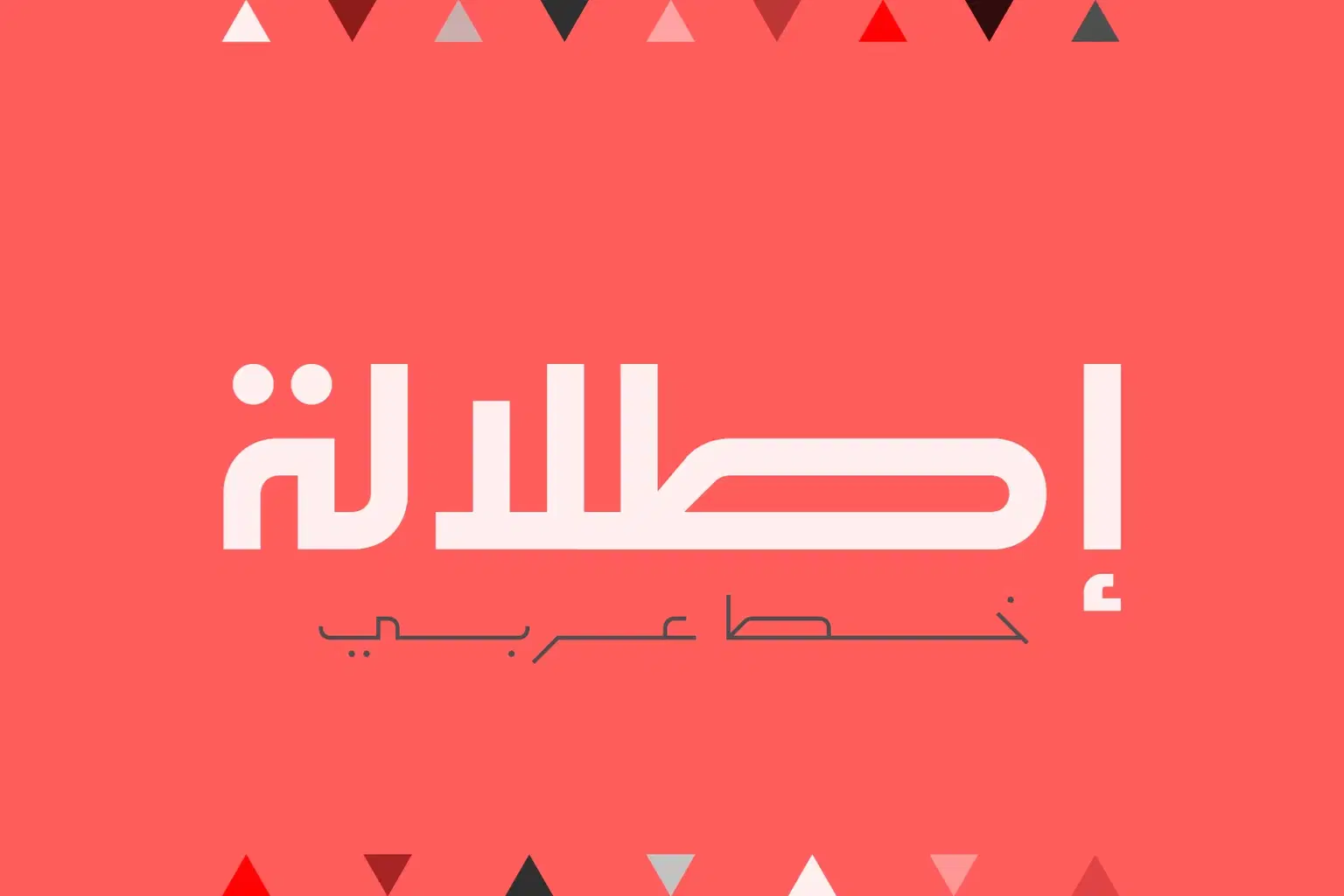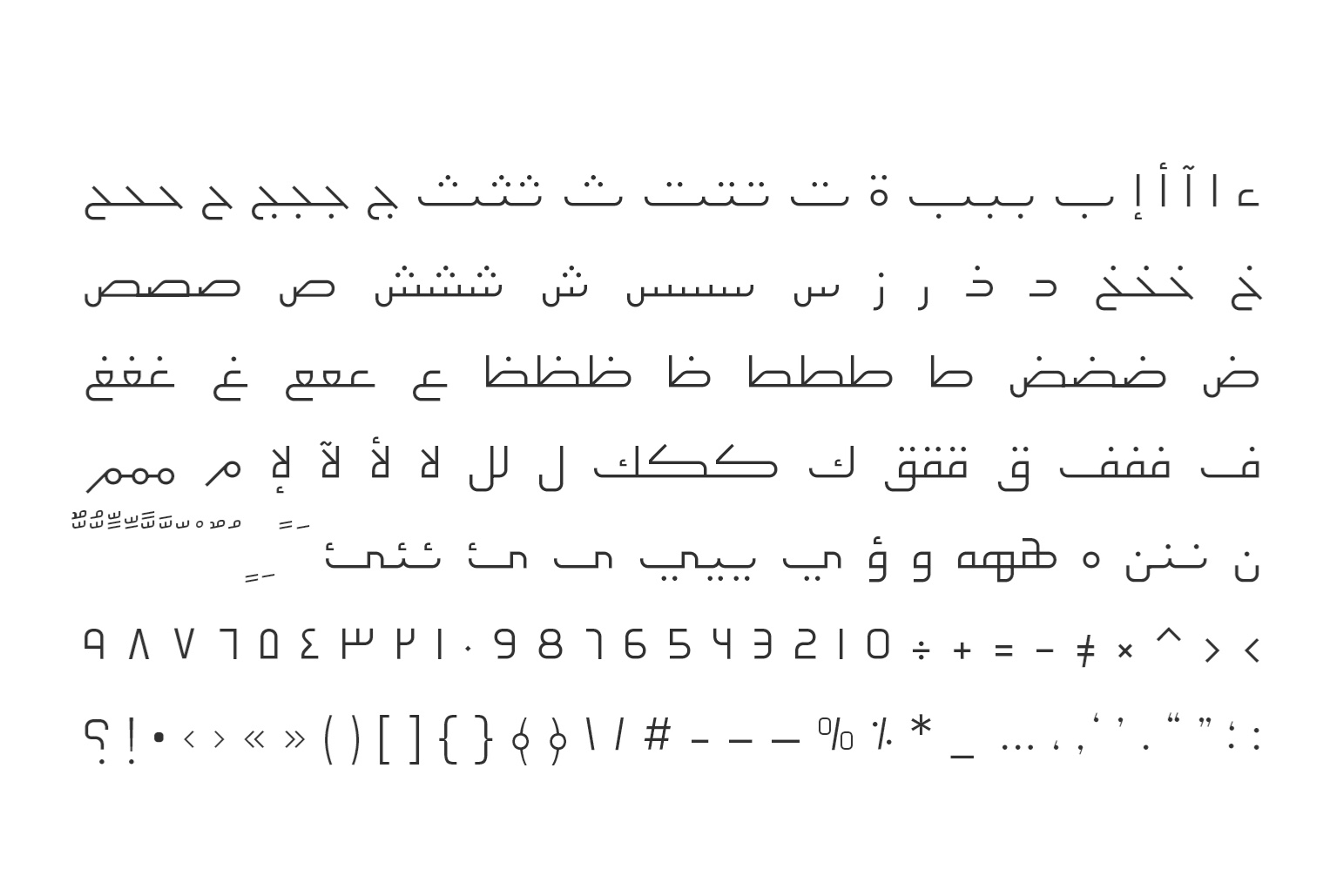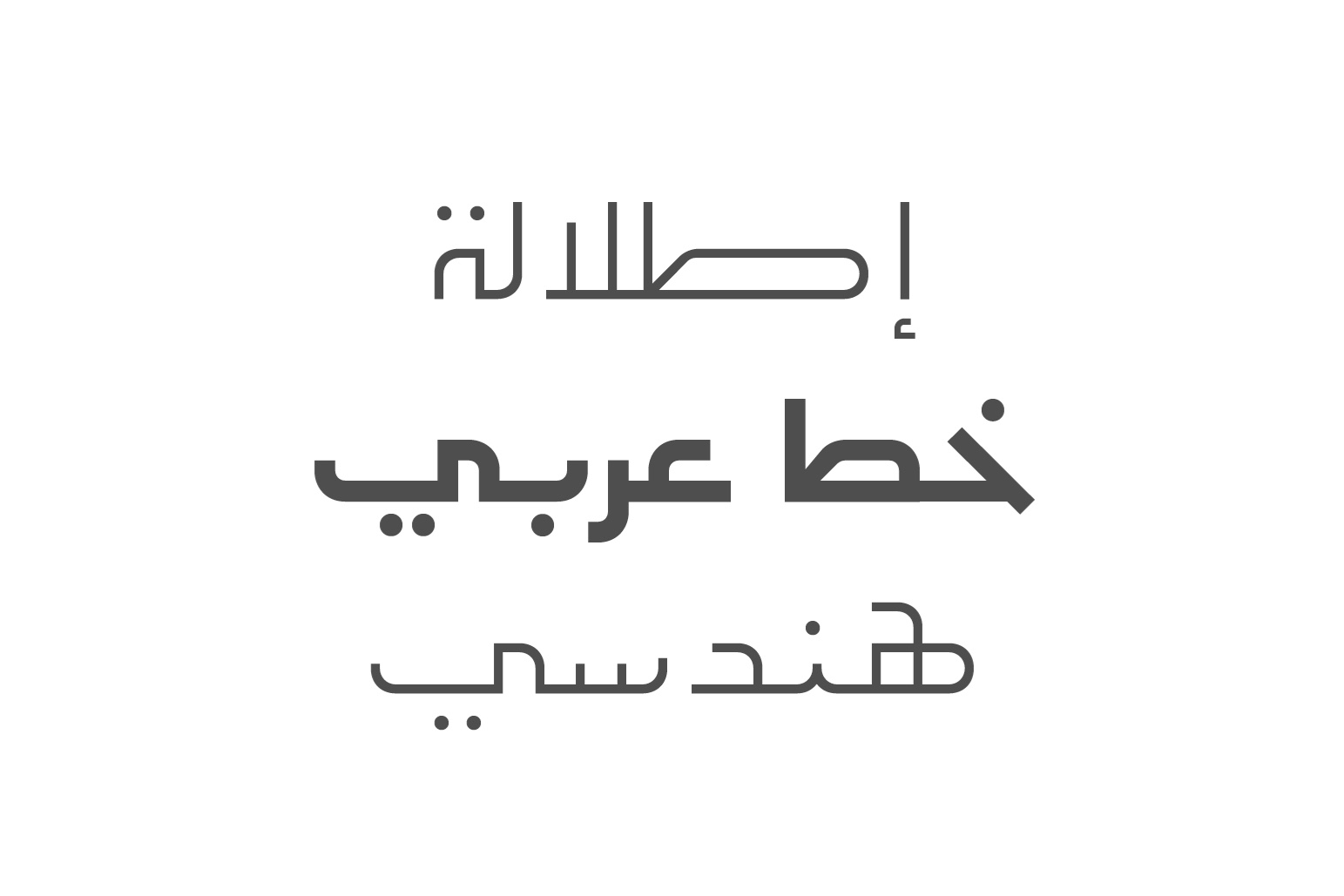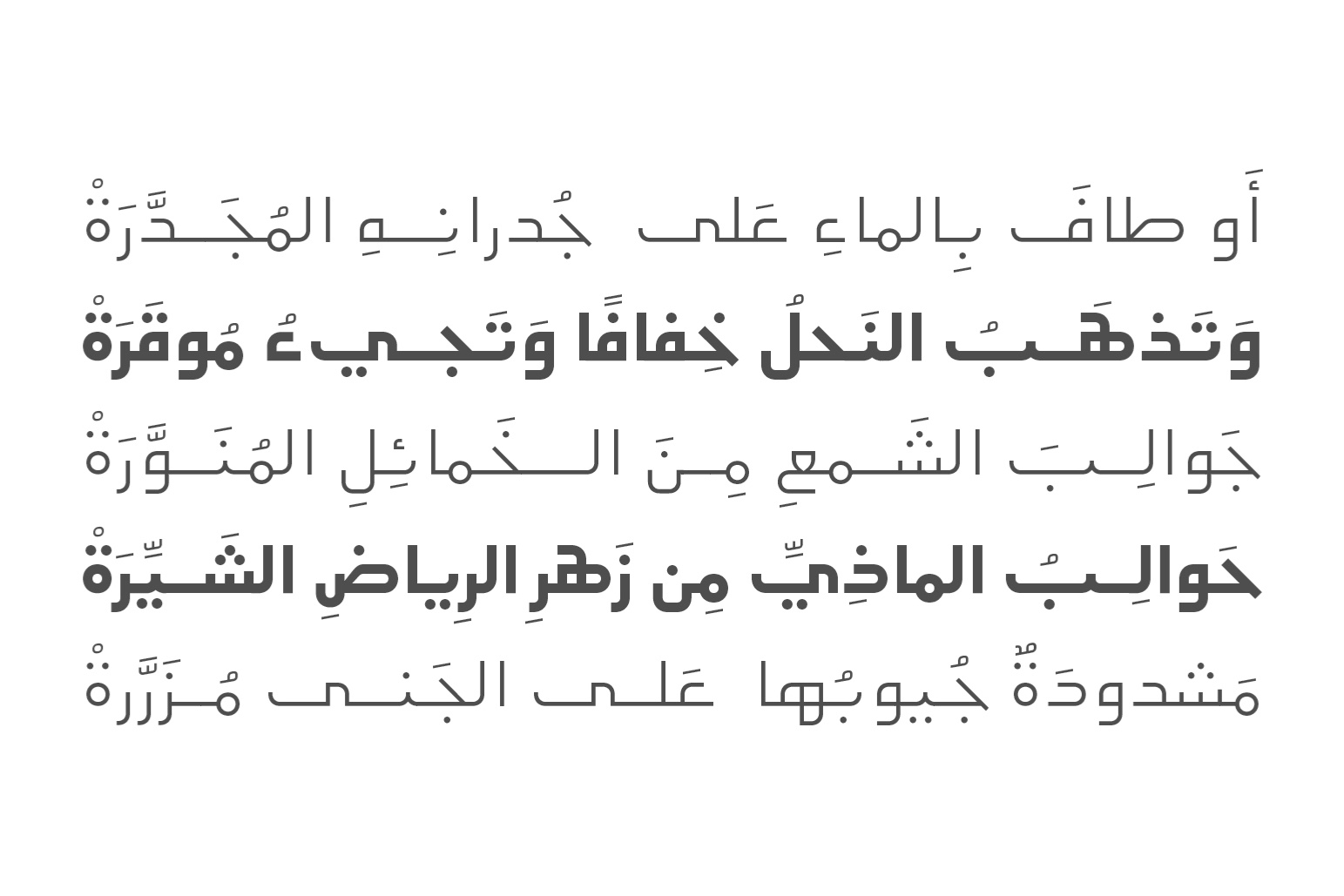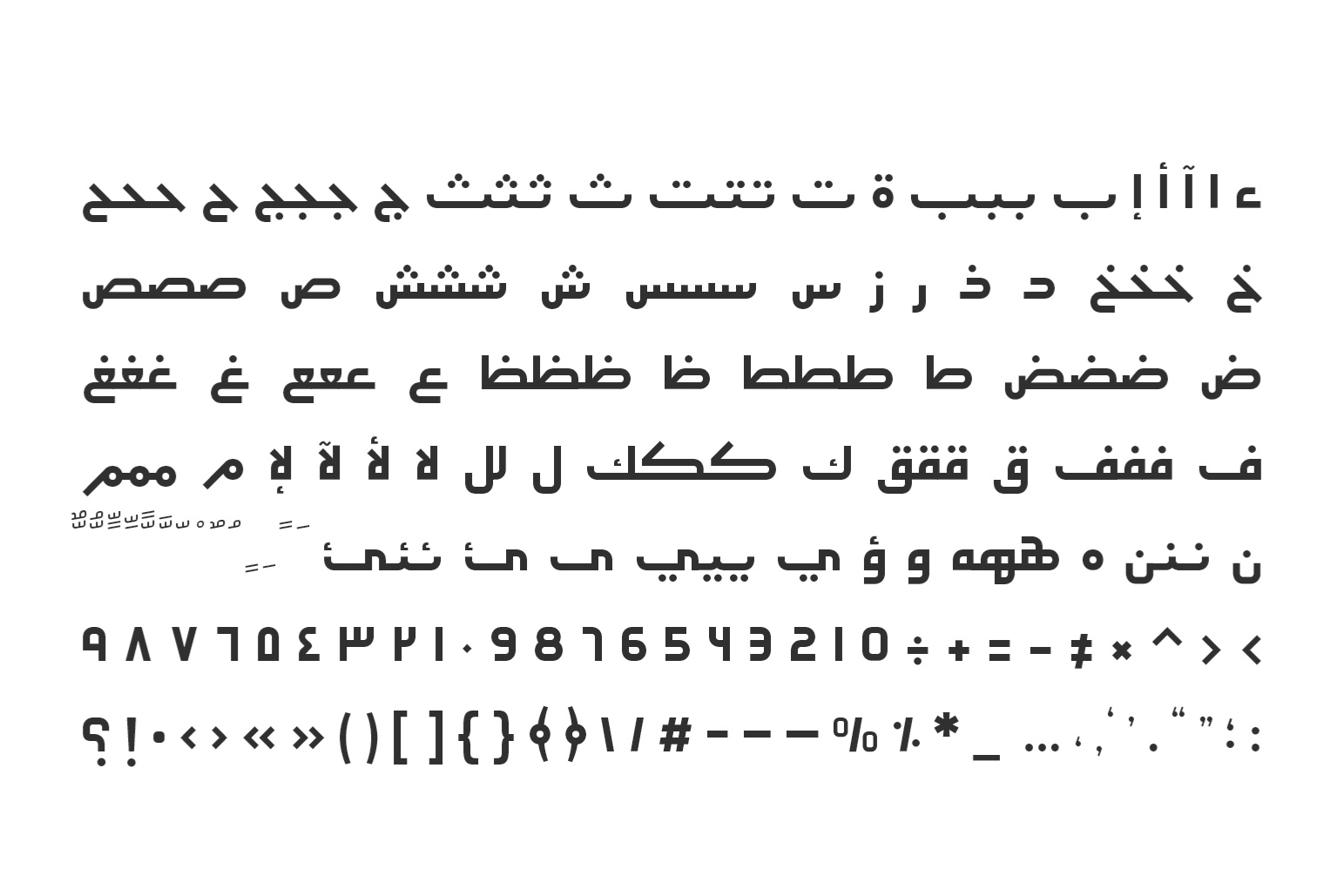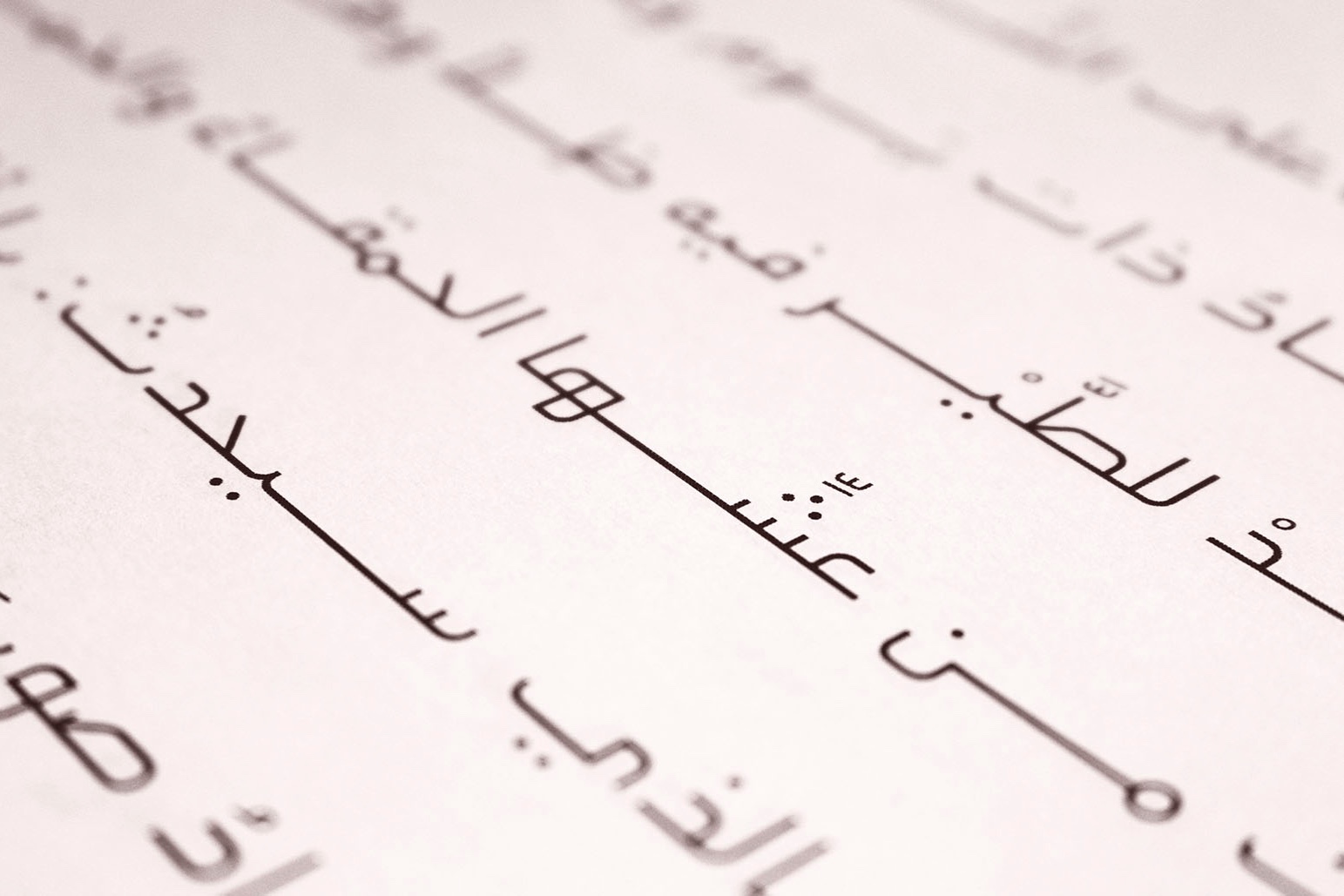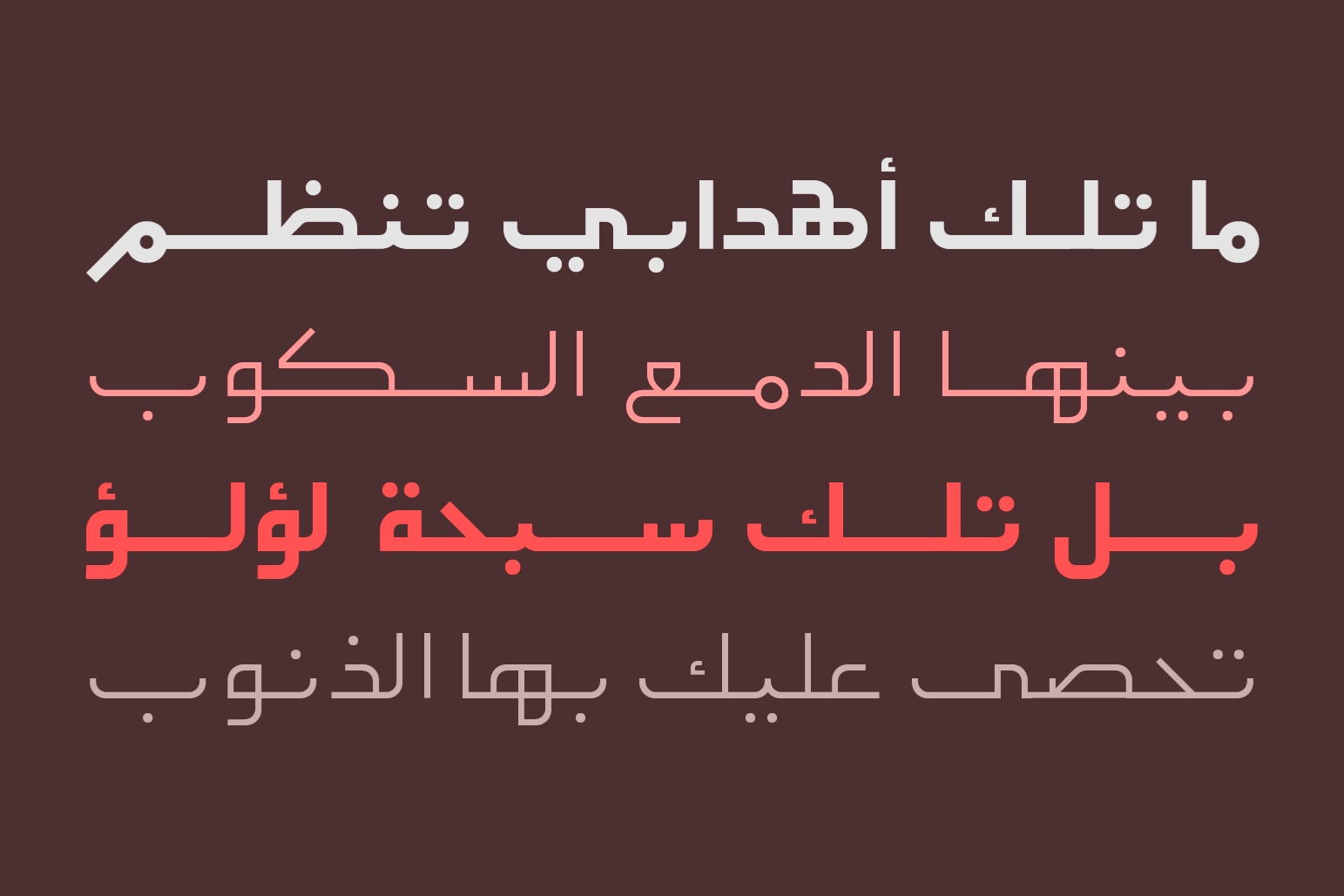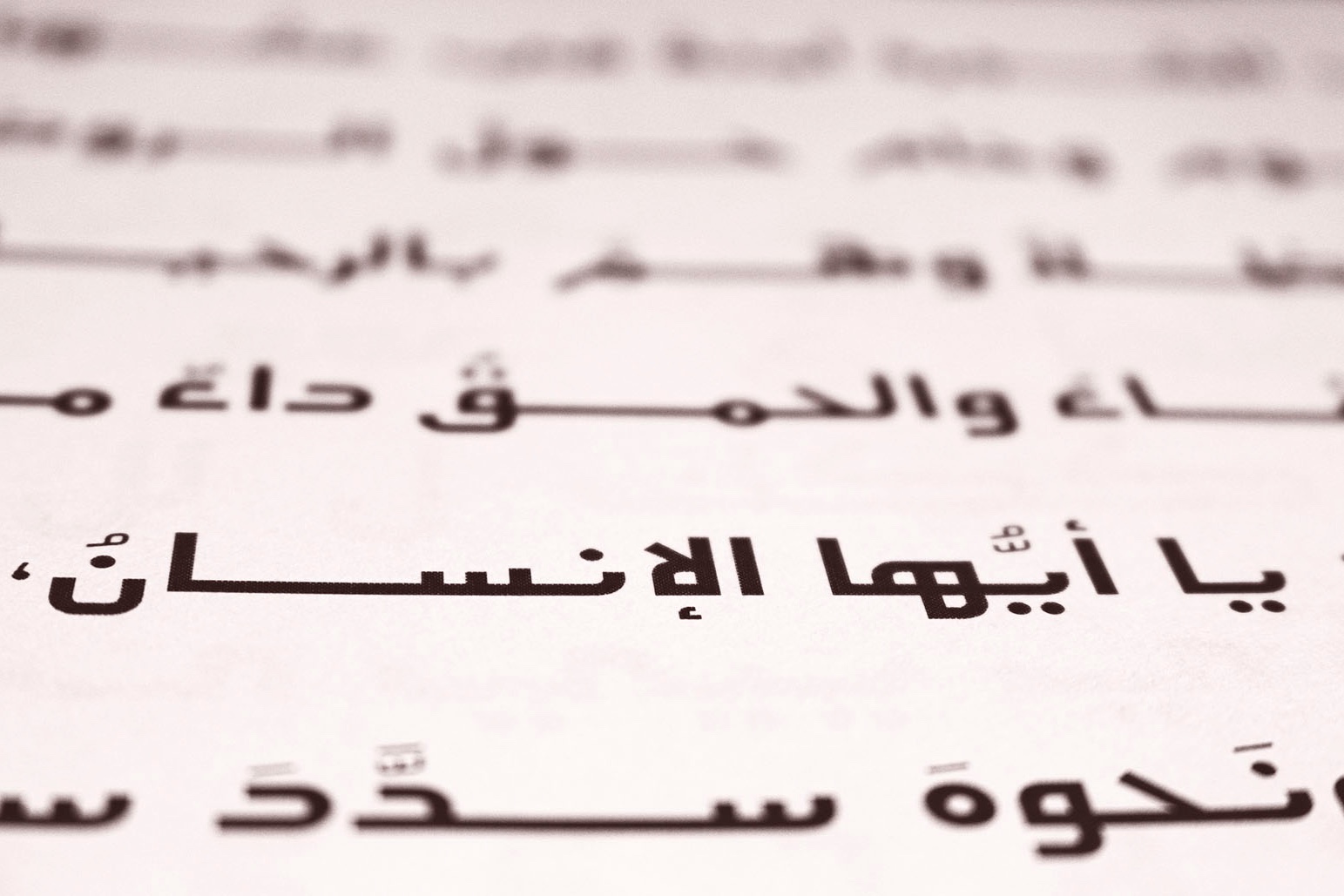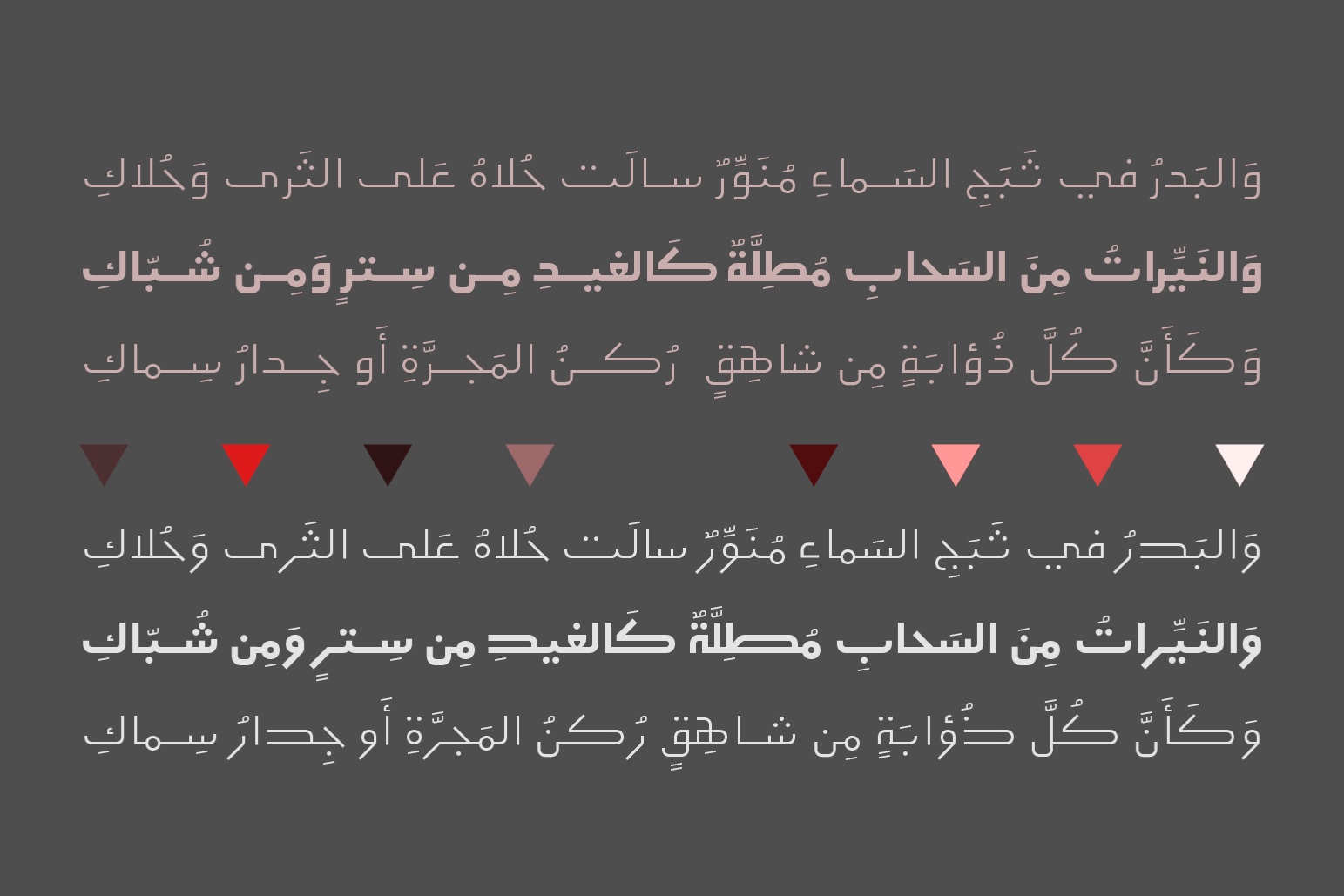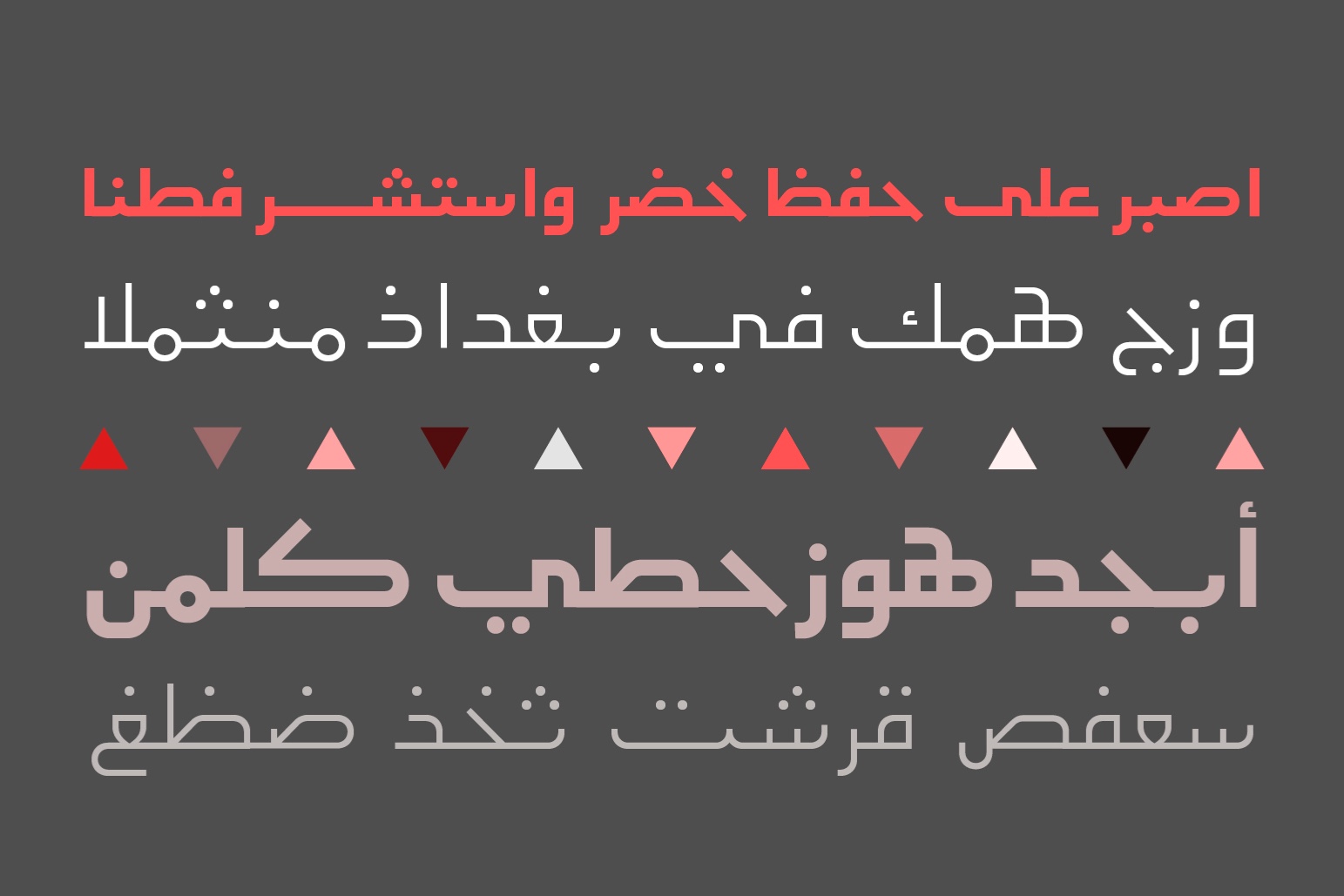
Etlalah is an Arabic display font that blends modernity and simplicity with the authenticity of Arabic script. The font is suitable for branding, advertising, web and typographic compositions. It features a stylistic set and two weights; regular and bold.
300+ Characters
Regular and Bold